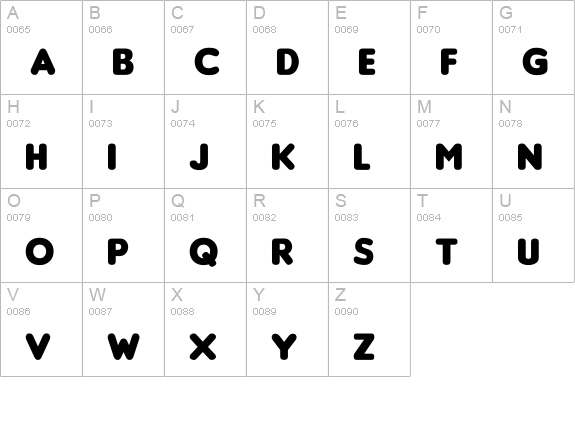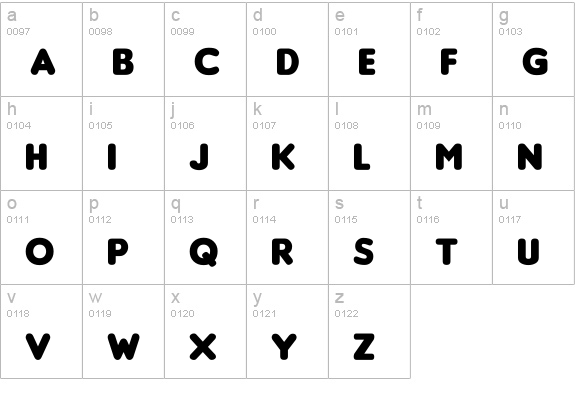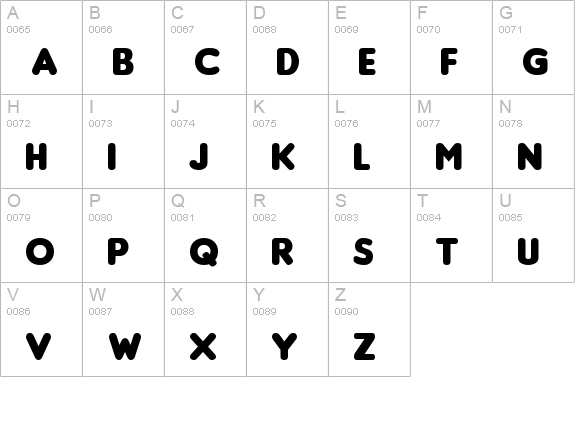
Introducing Insaniburger, a delectable and visually captivating font that will take your designs to the next level! This font is a perfect blend of boldness and eccentricity, making it ideal for those seeking to add a touch of playfulness and uniqueness to their projects. Insaniburger is a typeface that exudes a youthful energy, with its exaggerated letterforms and quirky details. It is inspired by the vibrant and dynamic atmosphere of burger joints, where creativity and indulgence collide. Each letter is carefully crafted to embody the essence of this exciting culinary world, making it an excellent choice for food-related designs, menus, logos, and more. What makes Insaniburger even more enticing is that it is completely free! Yes, you read that right. This font is freely available to download at FontsMarket.com, a trusted source for high-quality and diverse fonts. Now, you can elevate your designs without breaking the bank. Whether you're a seasoned designer or just starting out, Insaniburger is a versatile font that will inspire your creativity and bring a smile to your audience's faces. Its bold and attention-grabbing appearance ensures that your message will be noticed and remembered, making it perfect for branding, packaging, social media graphics, and anything else that needs a touch of fun and excitement. So, why settle for ordinary when you can have extraordinary? Download Insaniburger now and let your designs sizzle with personality and creativity. Don't miss out on this amazing opportunity to add a dash of free-spirited flair to your projects. Head over to FontsMarket.com and grab this delightful font today!